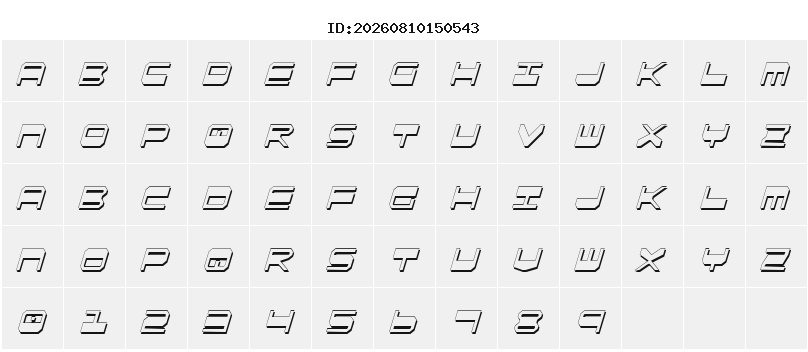
• Font Name: QuickGear Shadow ItalCon
• Font Style: Shadow ItalCon
• Designer: Dan Zadorozny
QuickGear Shadow ItalCon.ttf is a modern, elegant sans-serif font designed for ultimate readability and visual harmony. Perfect for branding, headlines, web design, and print materials.